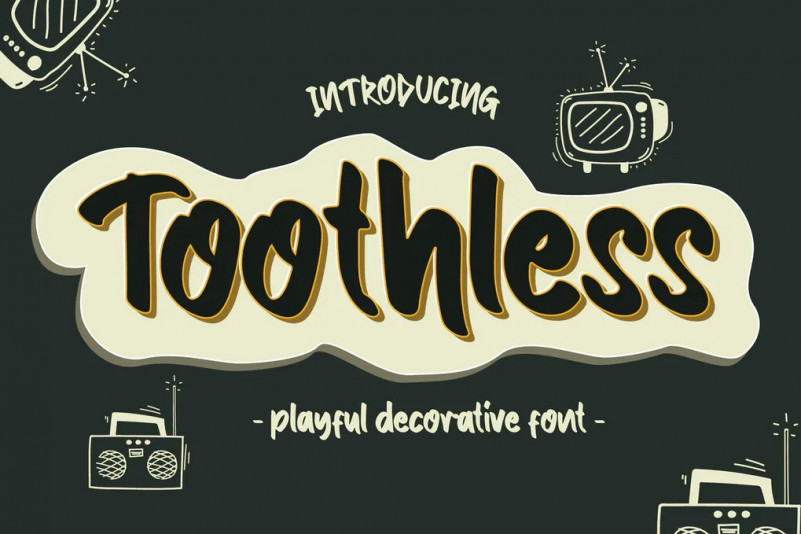
Toothless Font
This pair was inspired by the playful kids poster design that i saw on some coffee shop, It was crafted by hand specially to add natural handmade feeling in its brand identity than i make it clean with pentool.